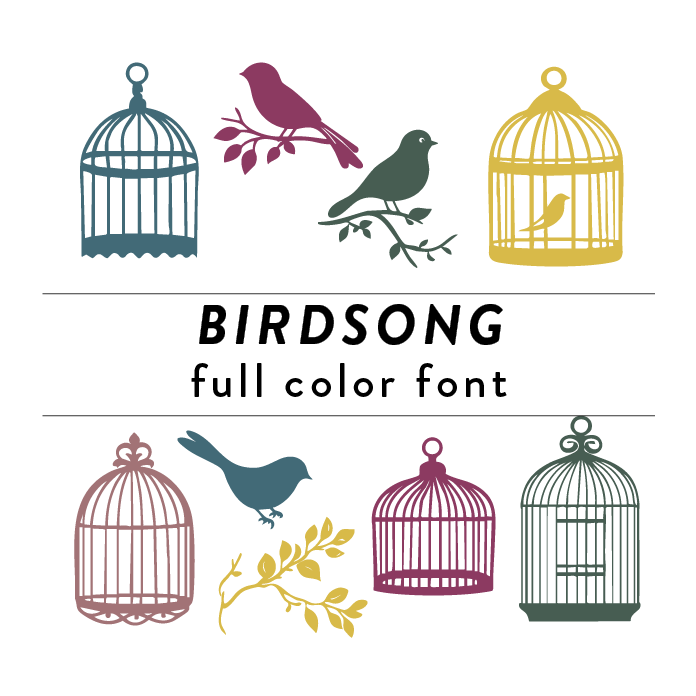
Birdsong Full Color Font is a whimsical and vibrant font design inspired by the beauty of nature. Featuring intricate birds, bird cages, and tree branch motifs, this decorative font adds a touch of charm to any project. Perfect for creating eye-catching designs with a nature theme. This font is a OTF craft font that will appear in color only when used with the silhouette software.